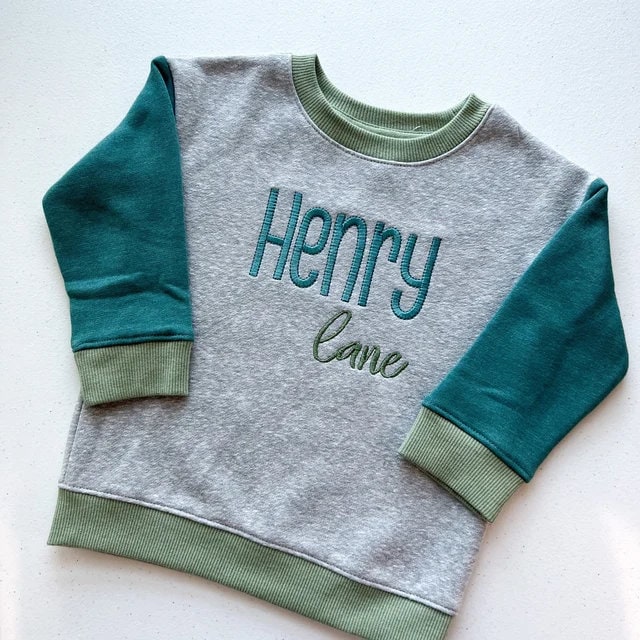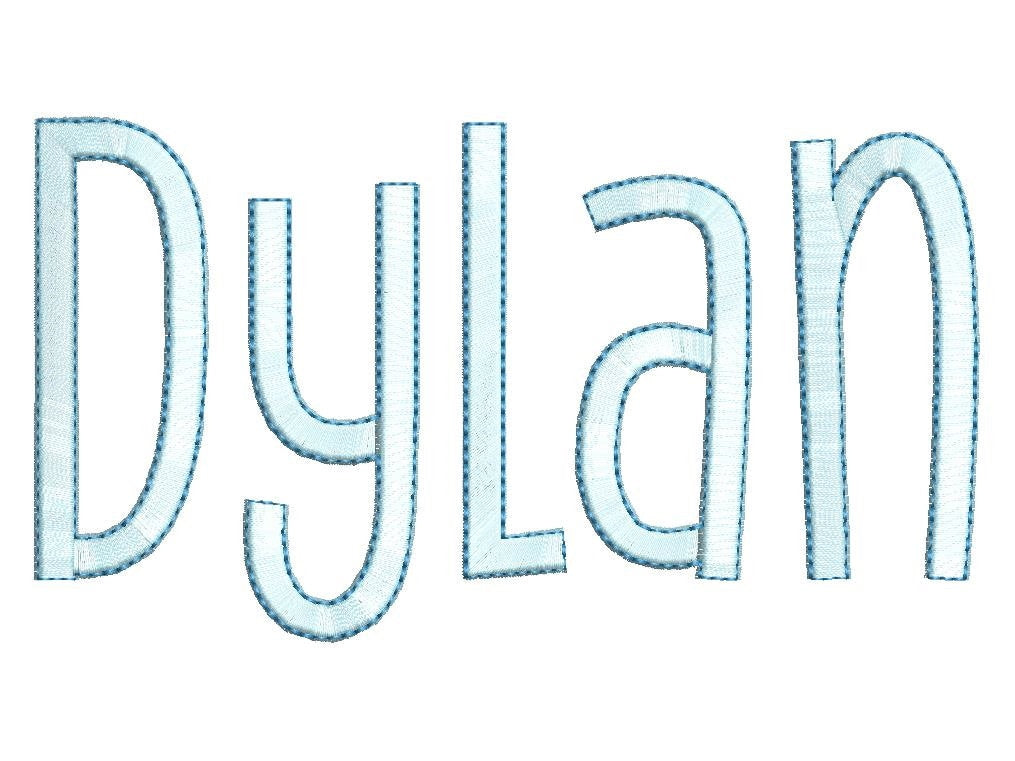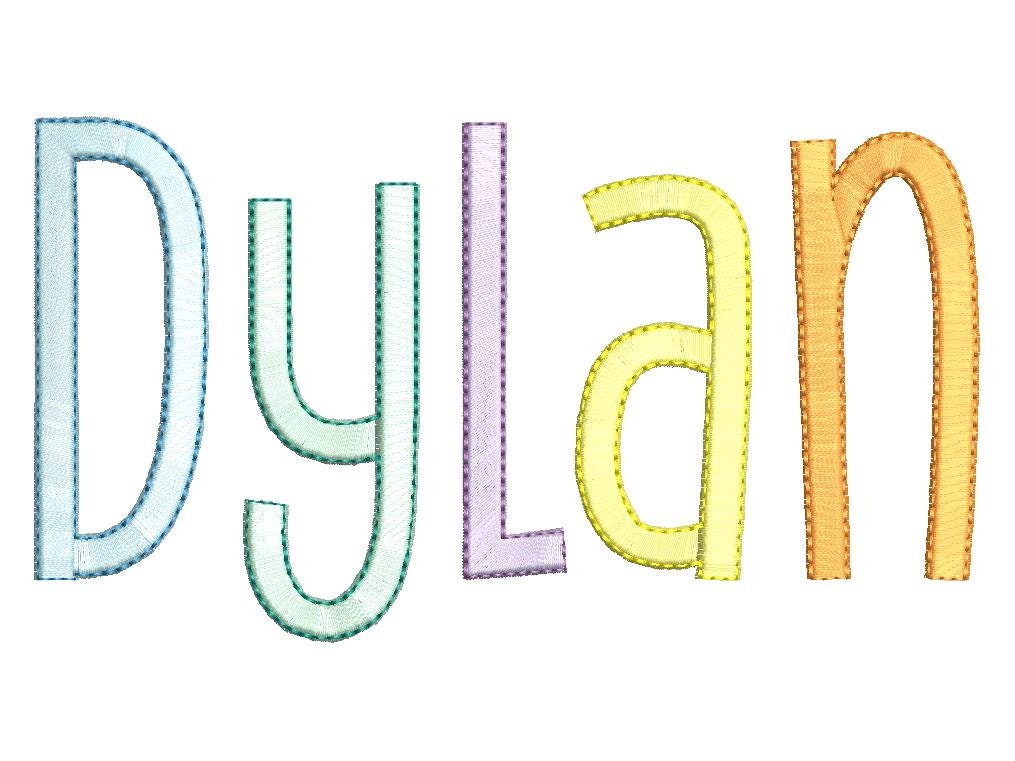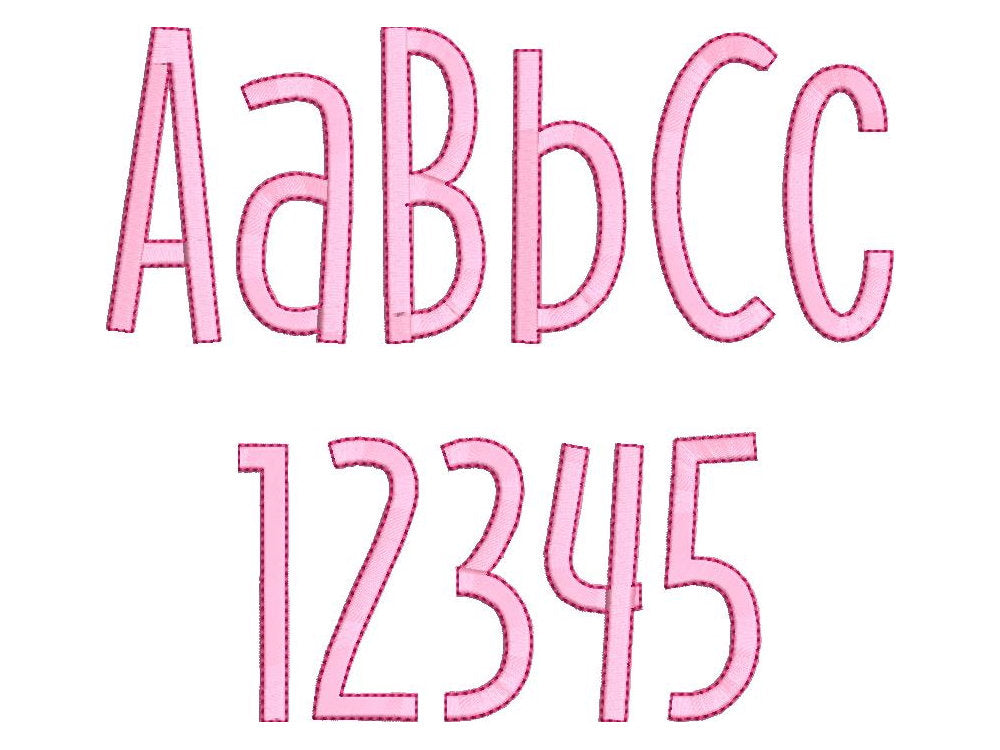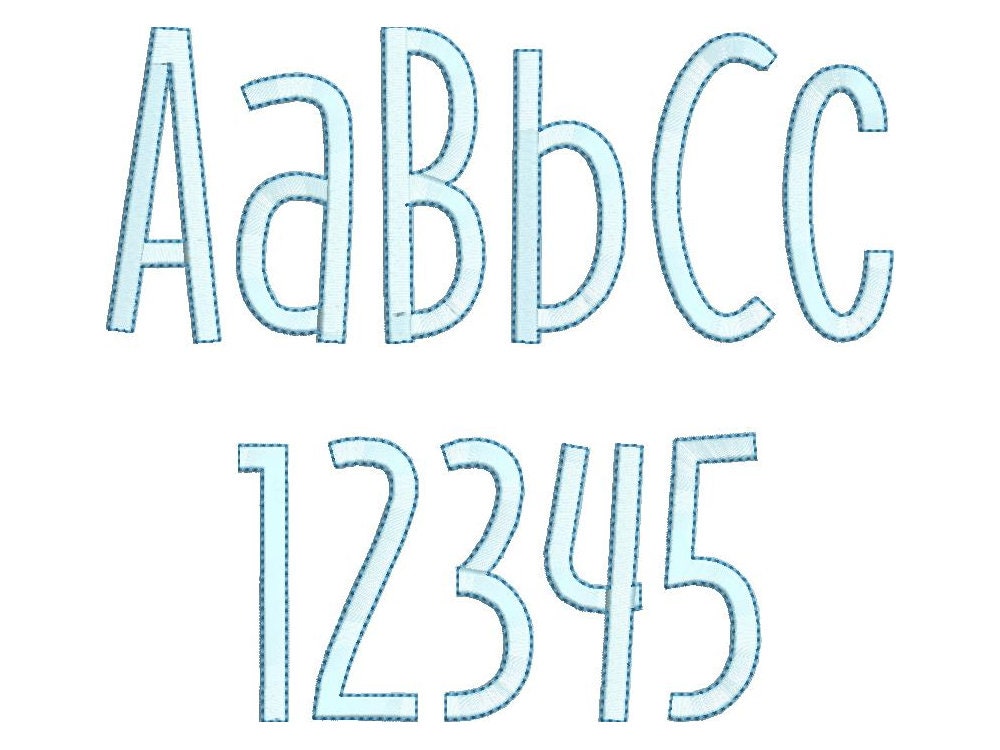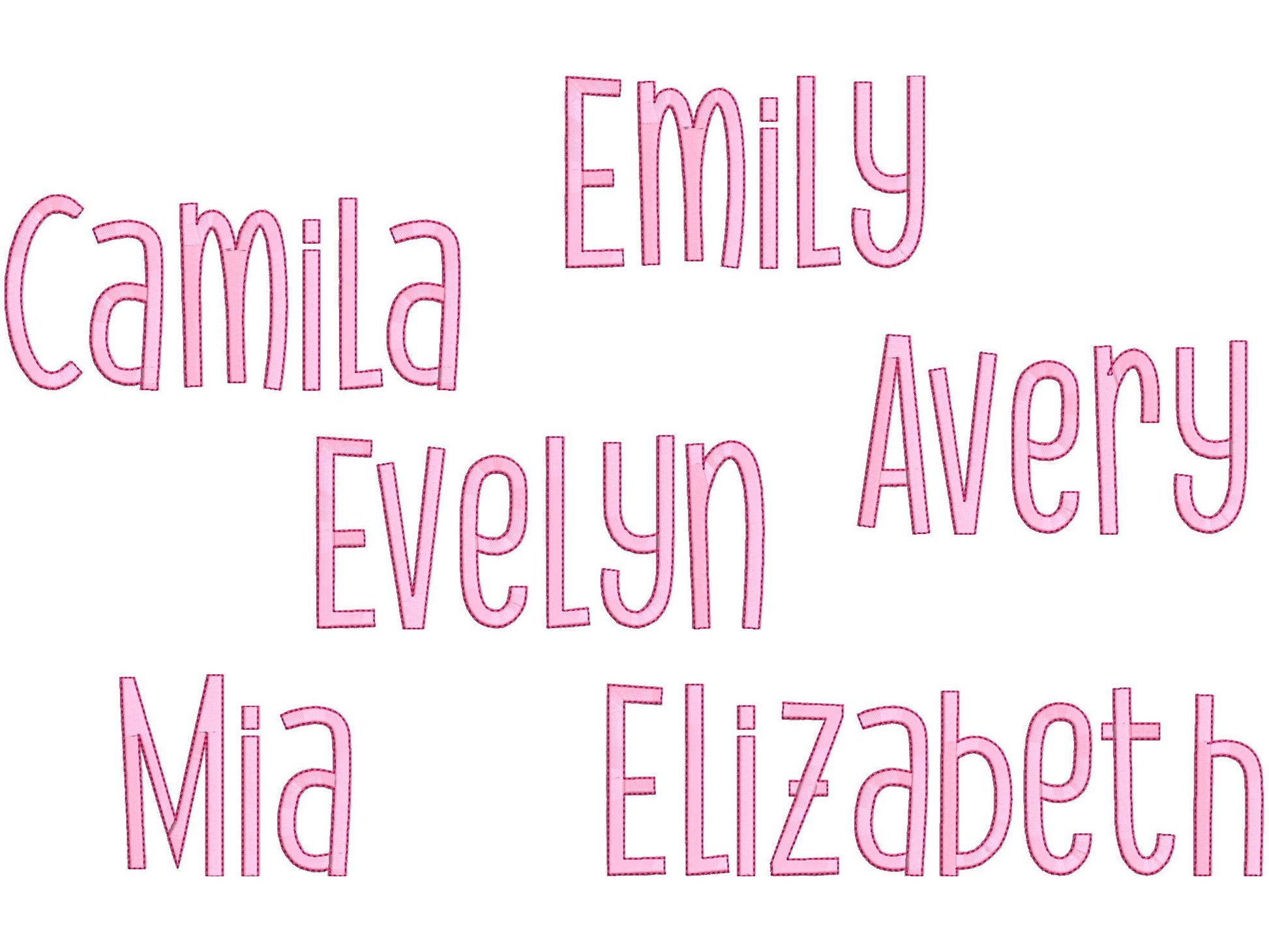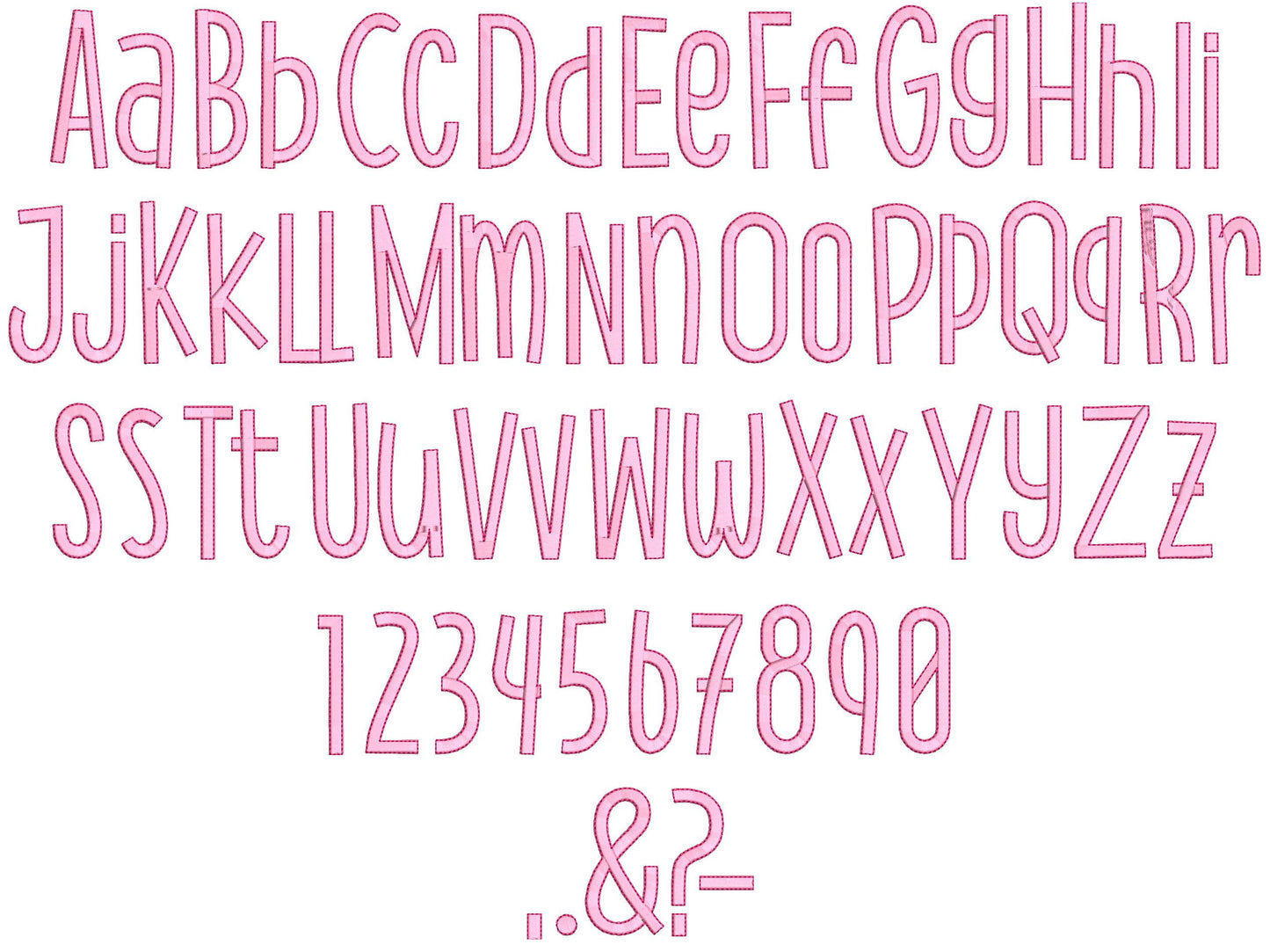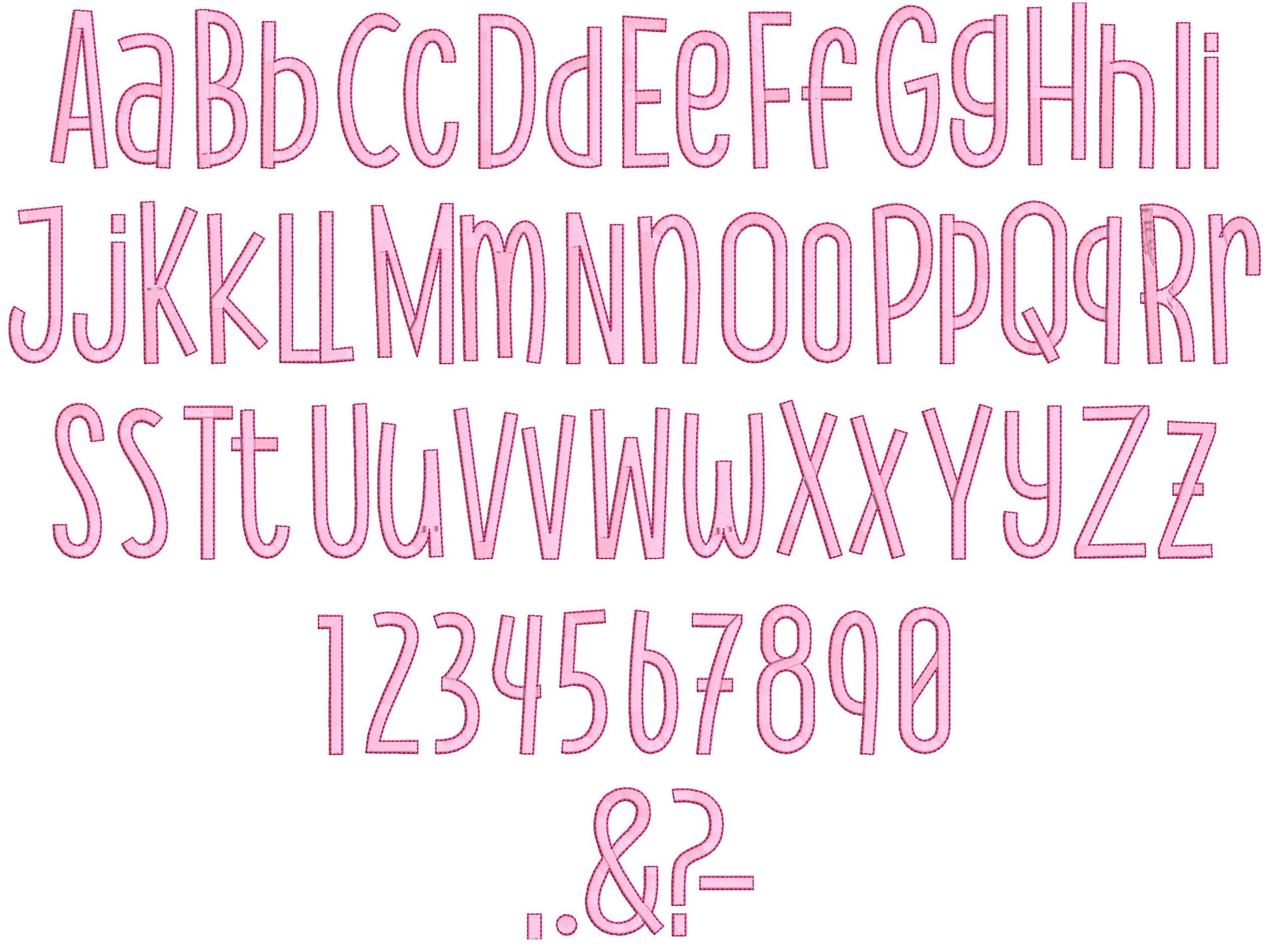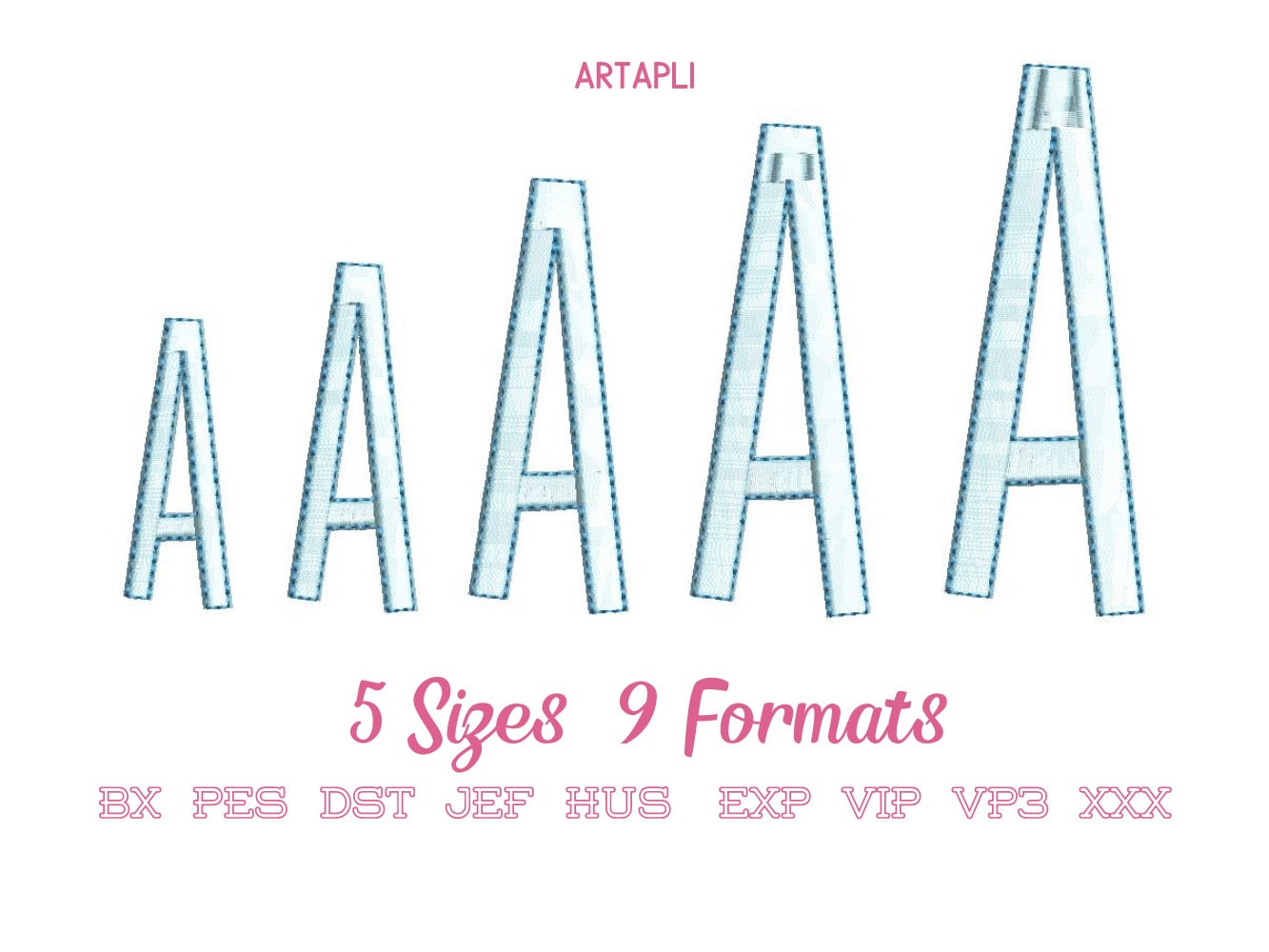
Love to stitch! beautiful font! super clean! I got so many compliments!
Stitched out great, love it with variegated thread
Was very clean and looks great
Stitches out great! Loved how it looked!
Love love this font! Stitches perfectly
This font stitched out great!
By far one of my most favorite fonts!!! I love it so much!!
Cute font and stitched out great!
Great font, but font takes some time to stitch out, so make sure you have ample time to commit, even with short 5 letter names
This font is so cute and modern. It stitched without any difficulty.
Absolutely beautiful font! Stitched out exactly like the advertised picture.